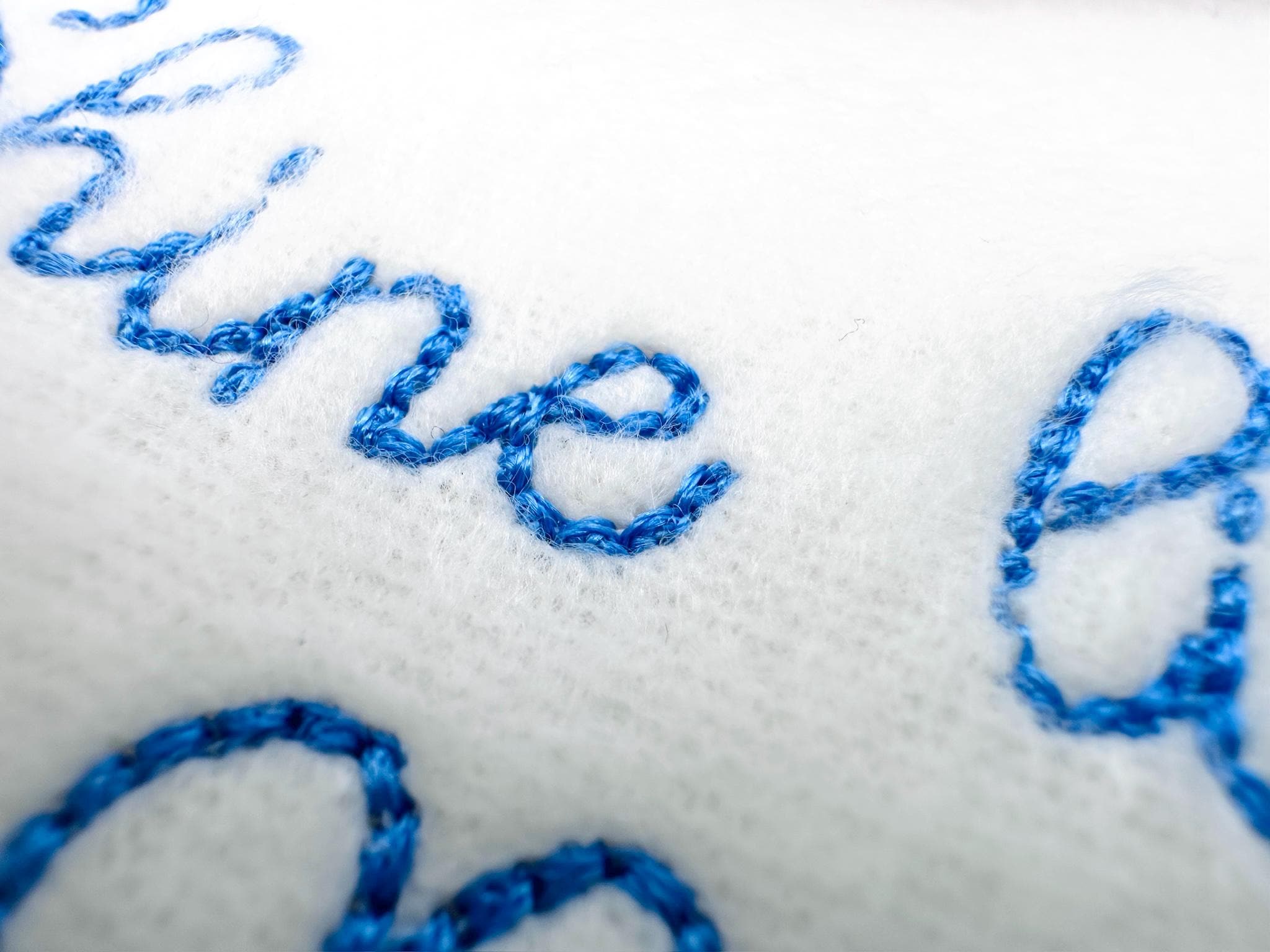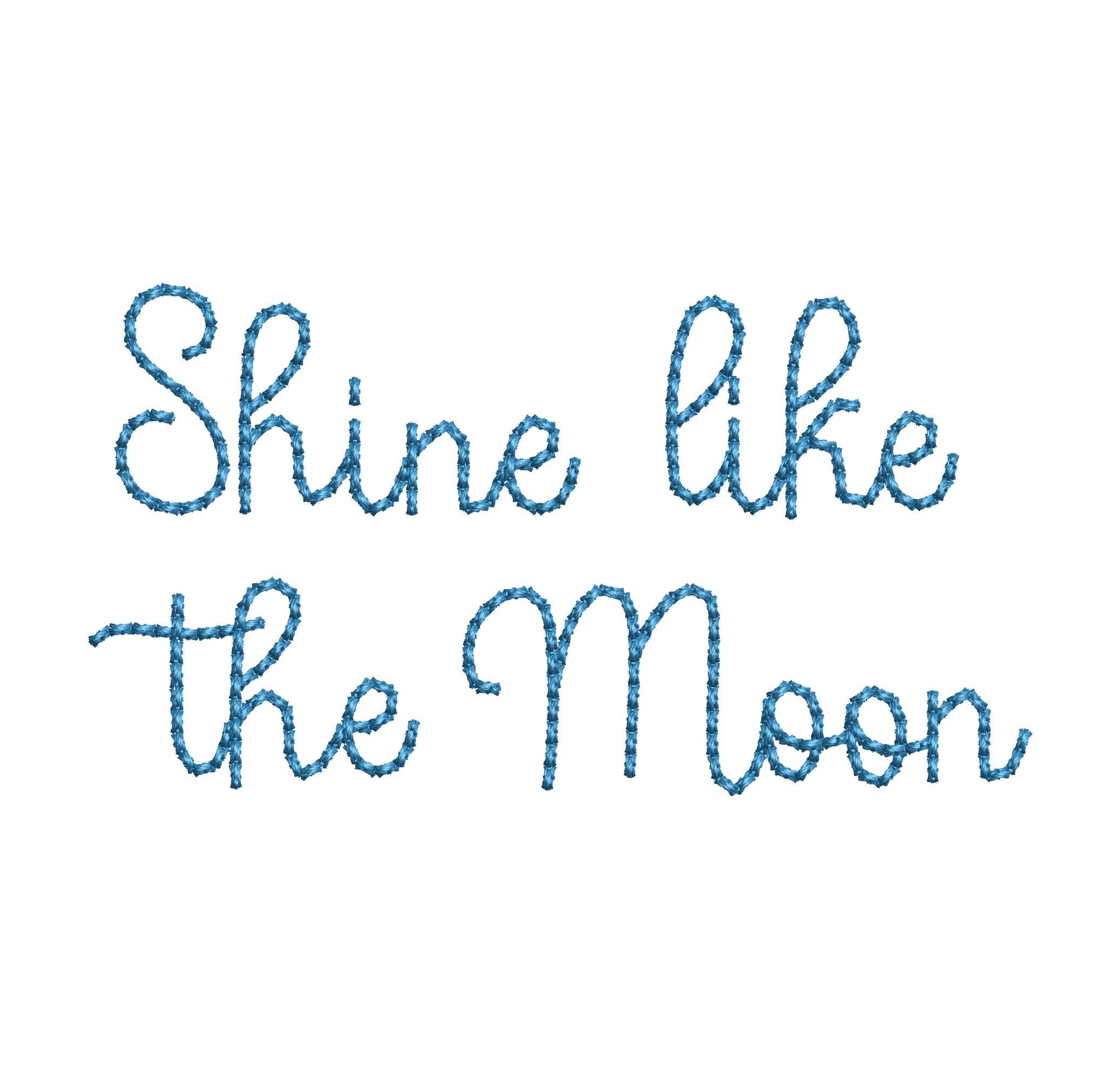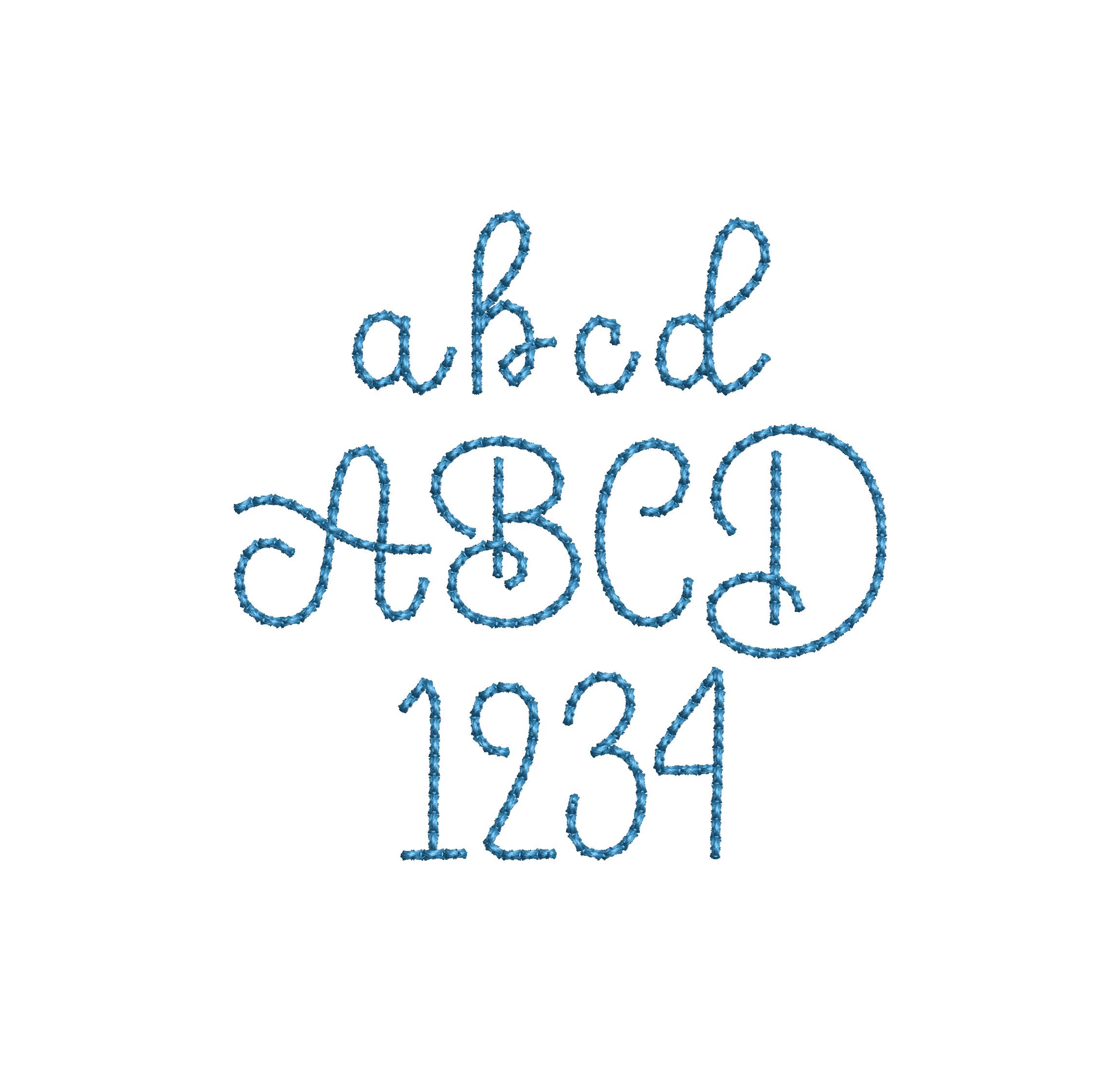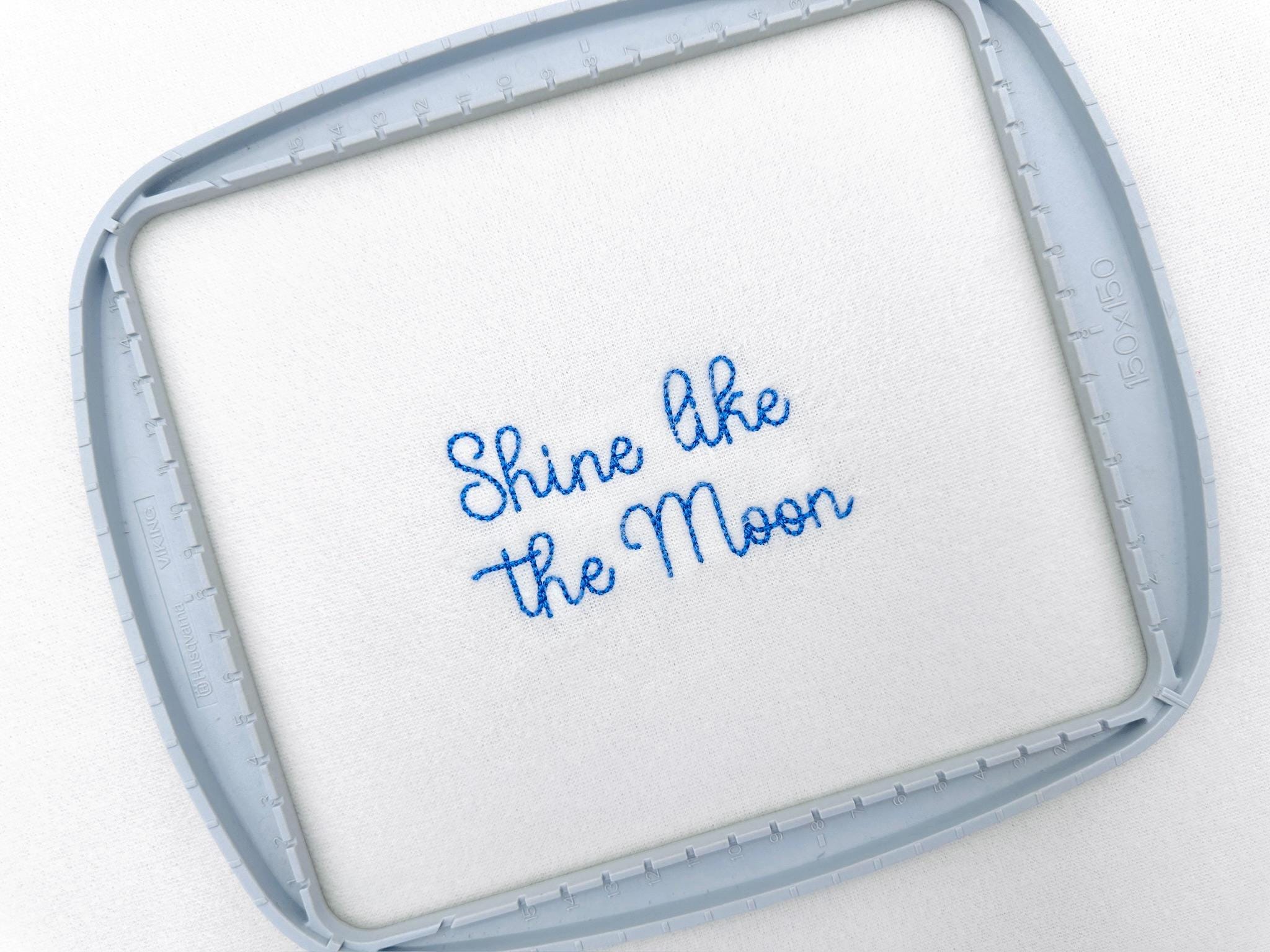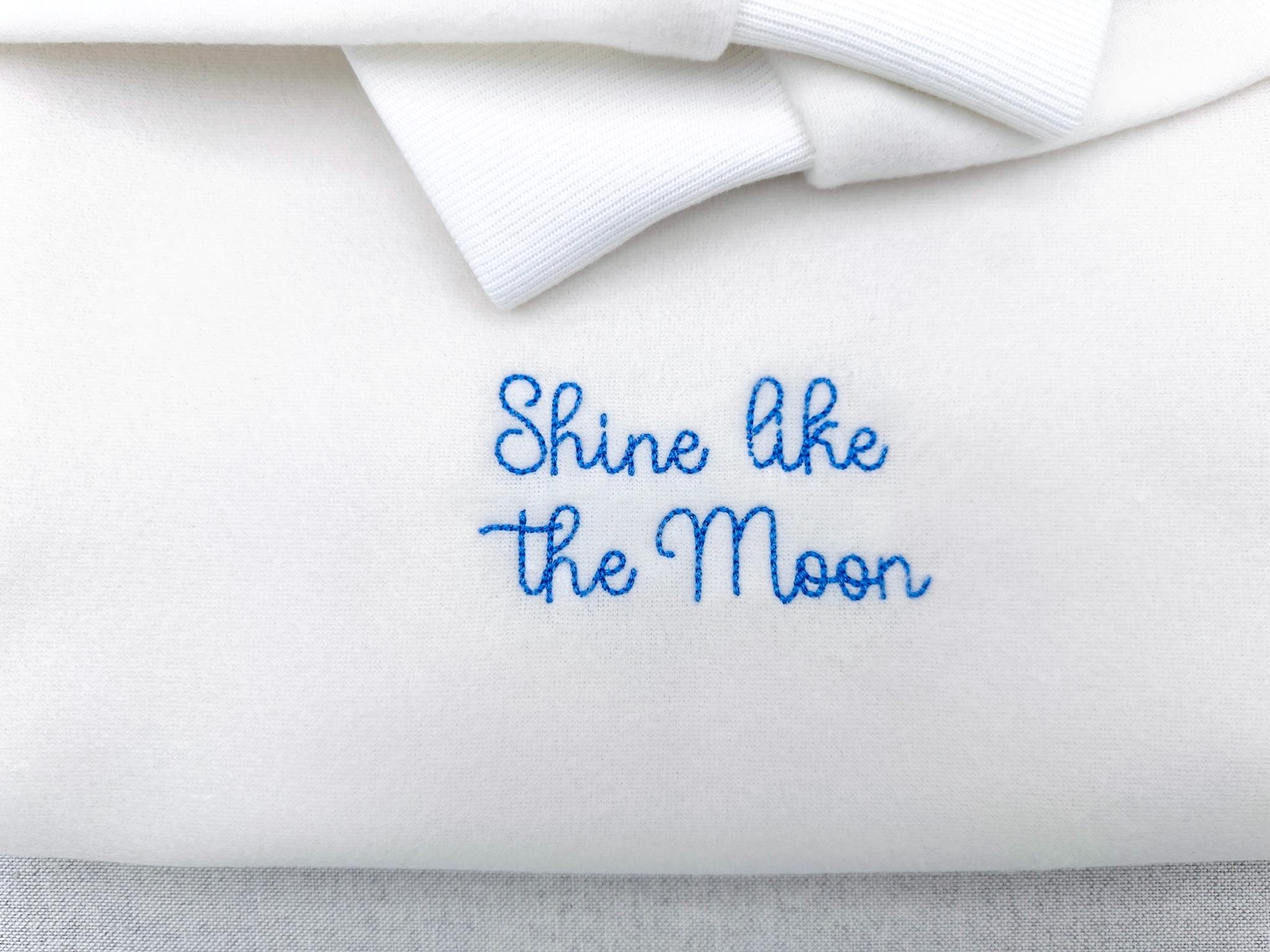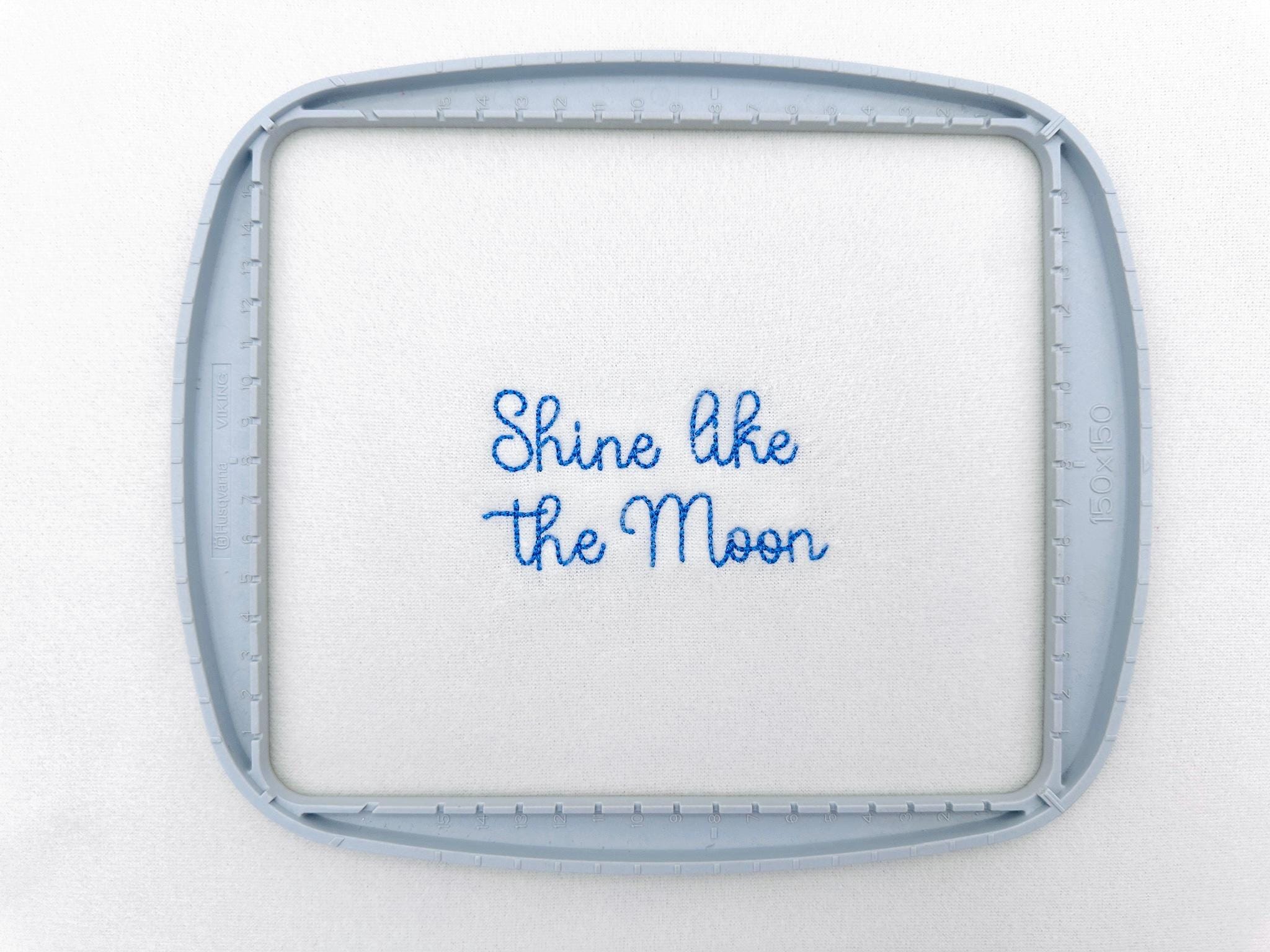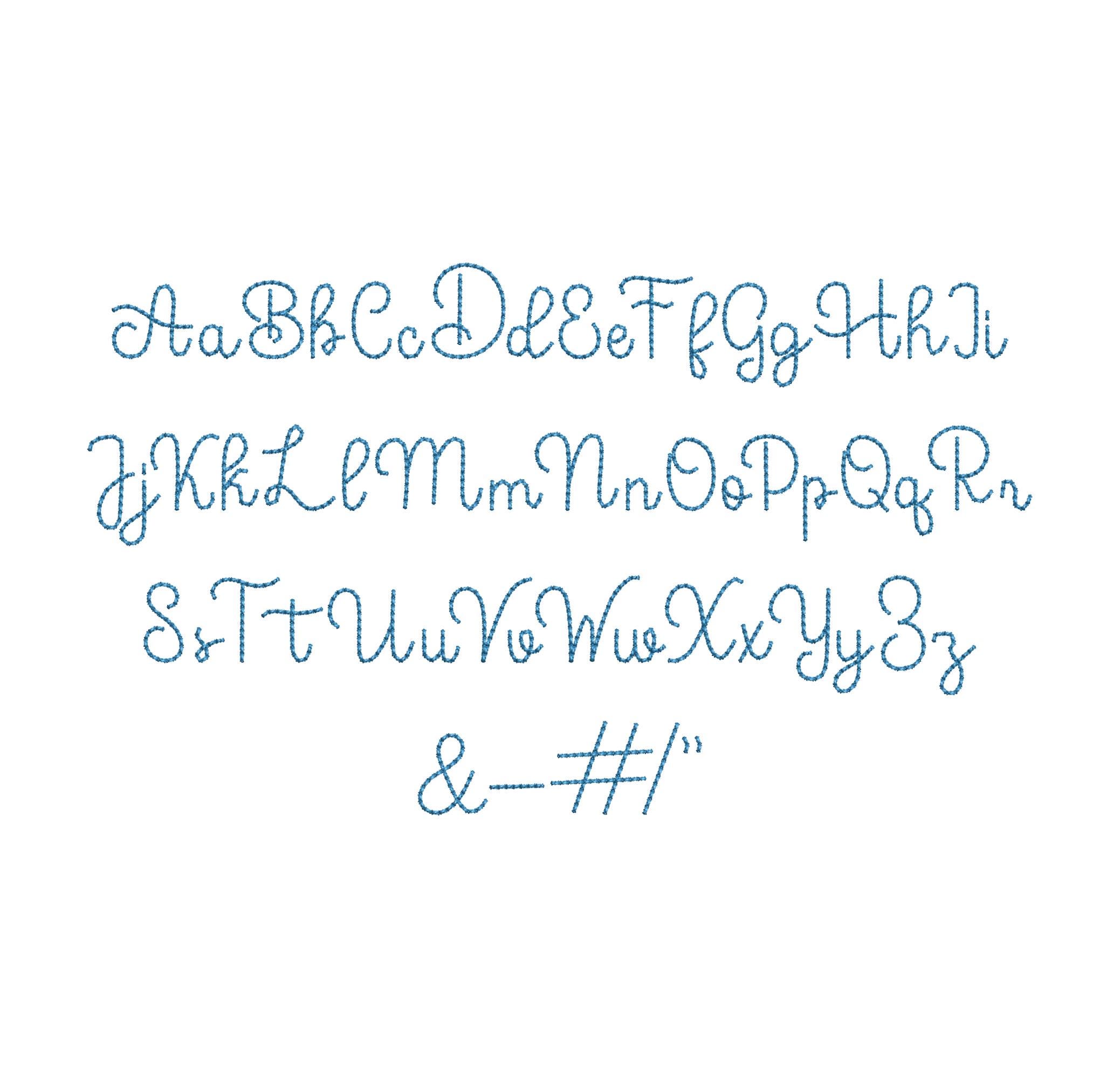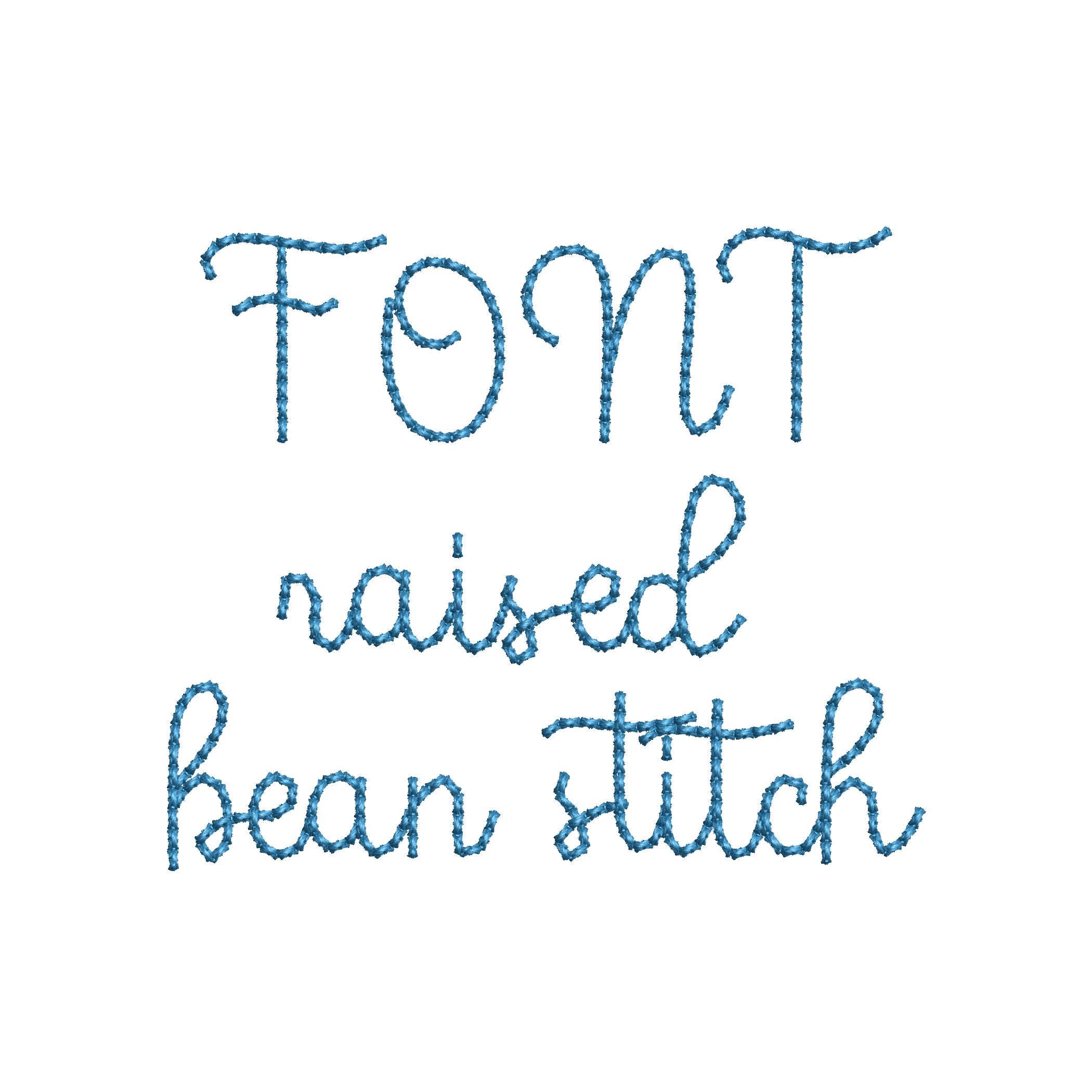
Handwritten script FONT Moon Bean Alphabet Monogram raised bean stitch kids baby machine embroidery designs mini sizes 0.6 up to 1.6 inch BX
Entire alphabet uppercase and lowercase letters Aa-Zz, numbers 0-9, and punctuation as shown in the image.